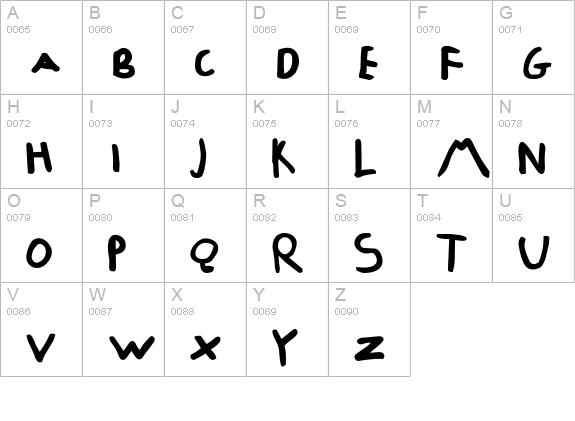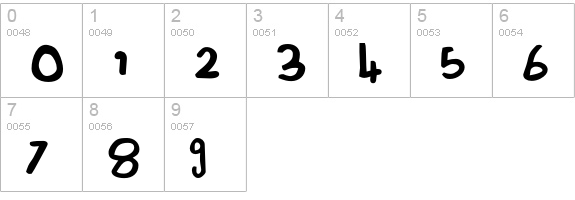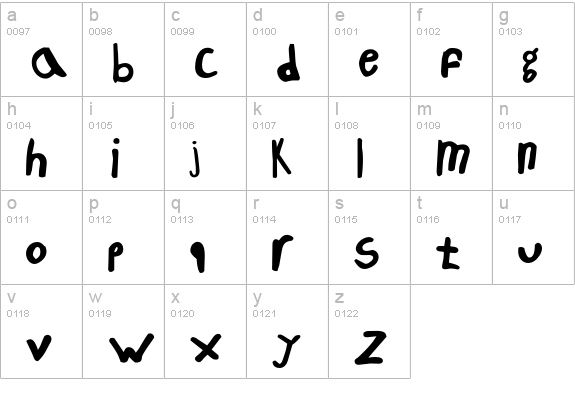
ChildsPlay-AgeSix Font Details
ChildsPlay-AgeSix font is a whimsical and playful typeface perfect for capturing the essence of childhood. Its charming and cheerful appearance makes it an ideal choice for projects aimed at young audiences, such as children's books, posters, and educational materials. The rounded edges and friendly letterforms evoke a sense of innocence and creativity, making it a delightful addition to any design. What sets ChildsPlay-AgeSix font apart is that it is available for free download at FontsMarket.com. This means that you can easily access this delightful font and use it in your projects without any cost. Embrace the joy and lightheartedness of childhood with ChildsPlay-AgeSix font, and let your designs come to life with its playful charm.